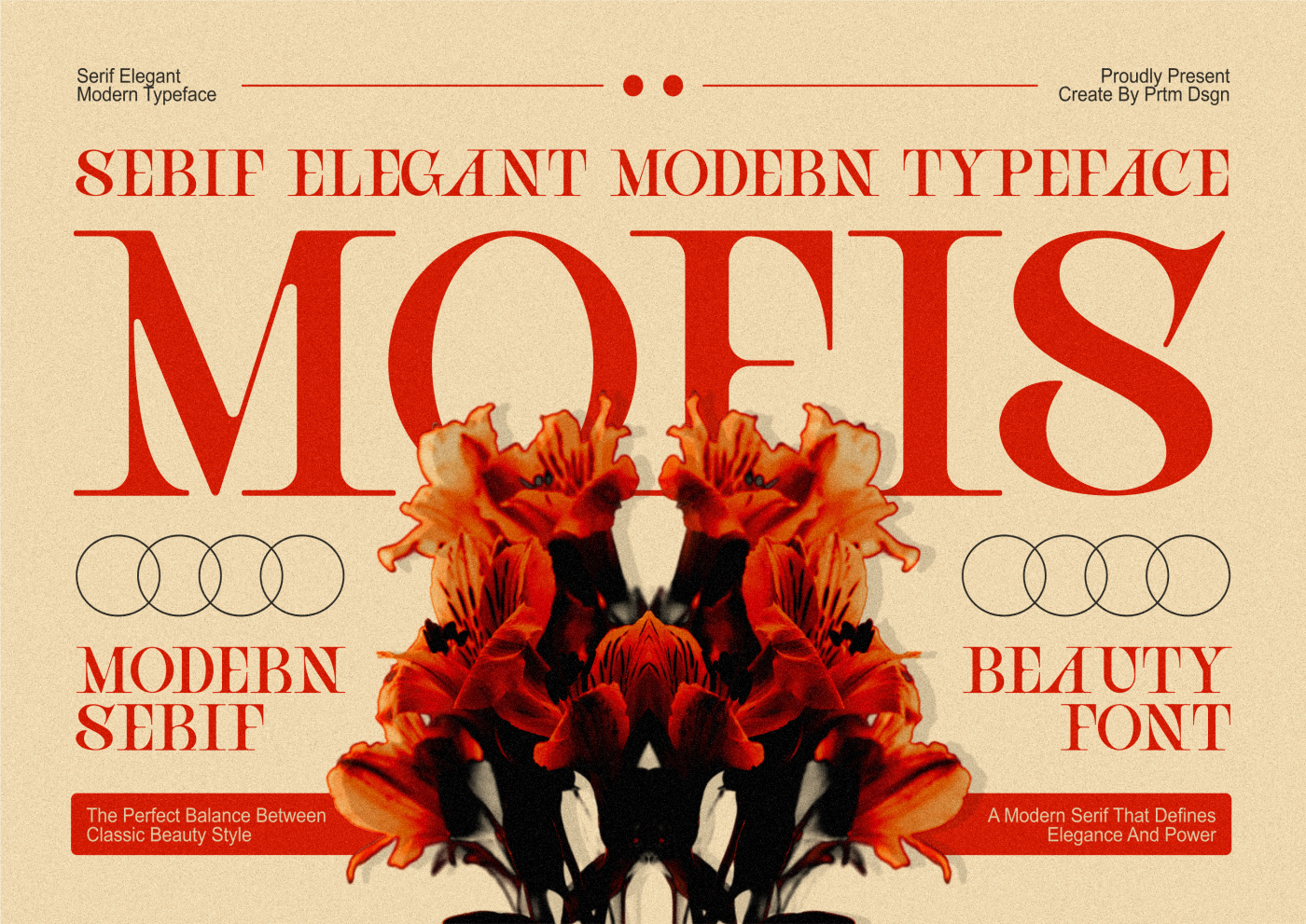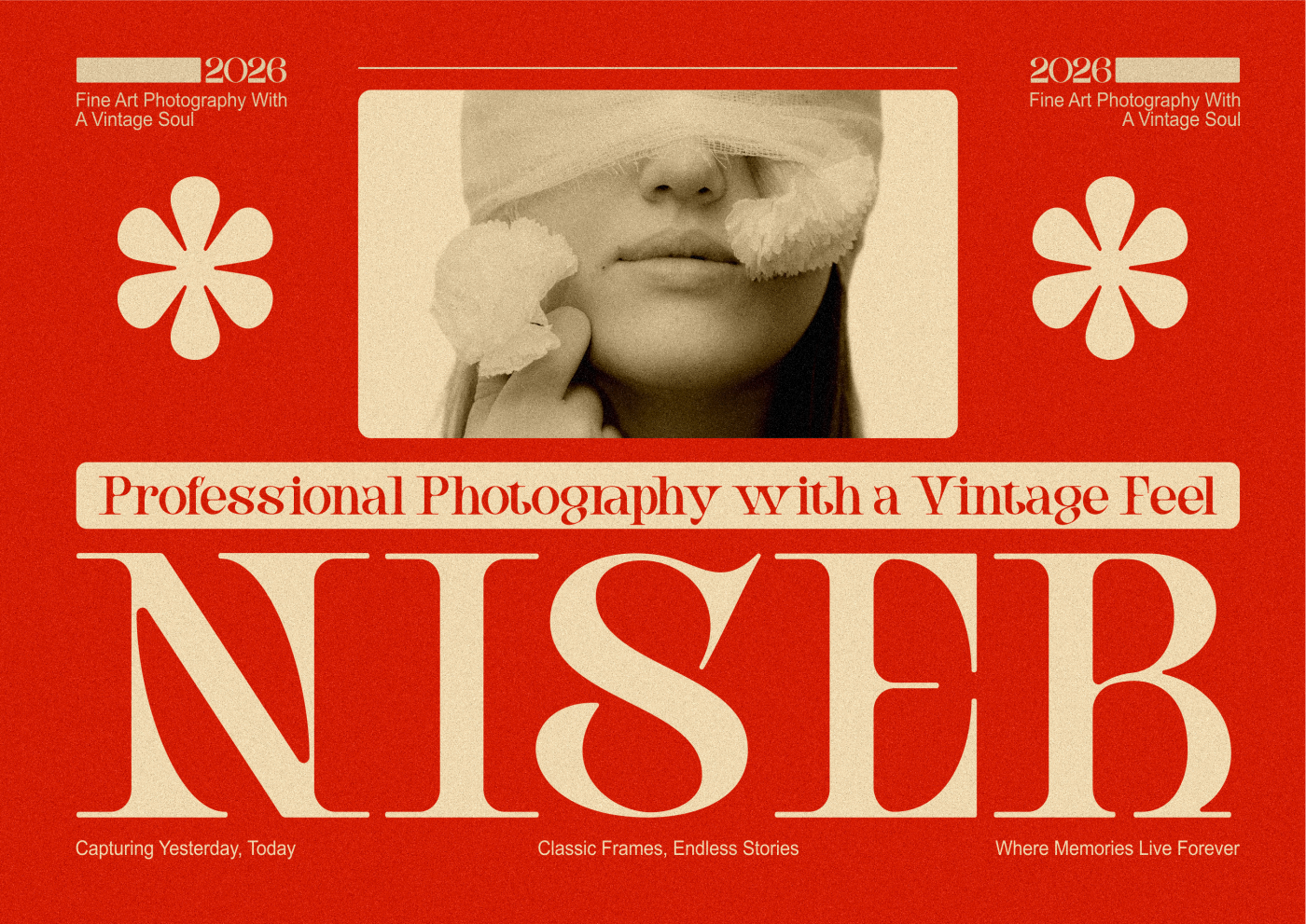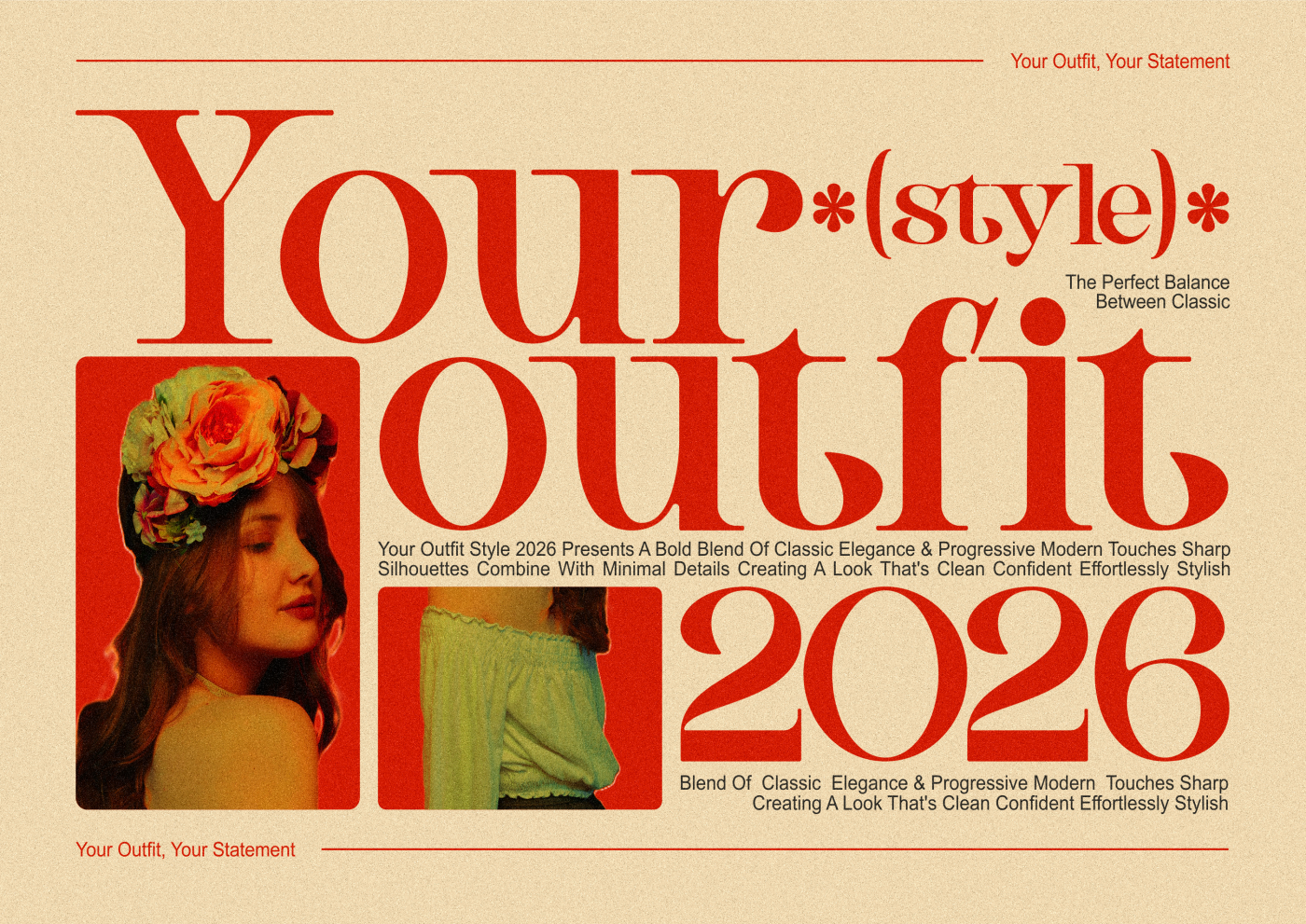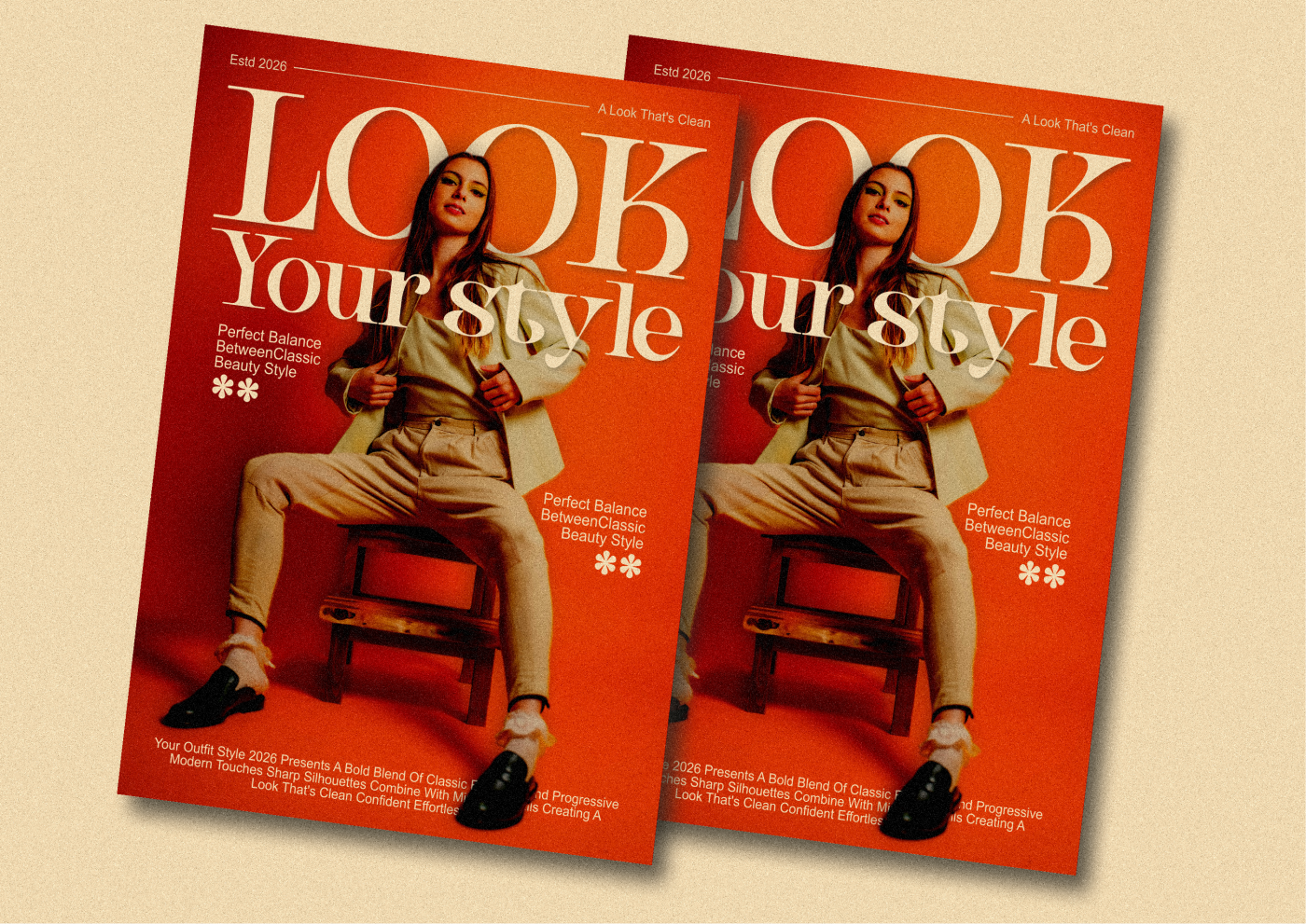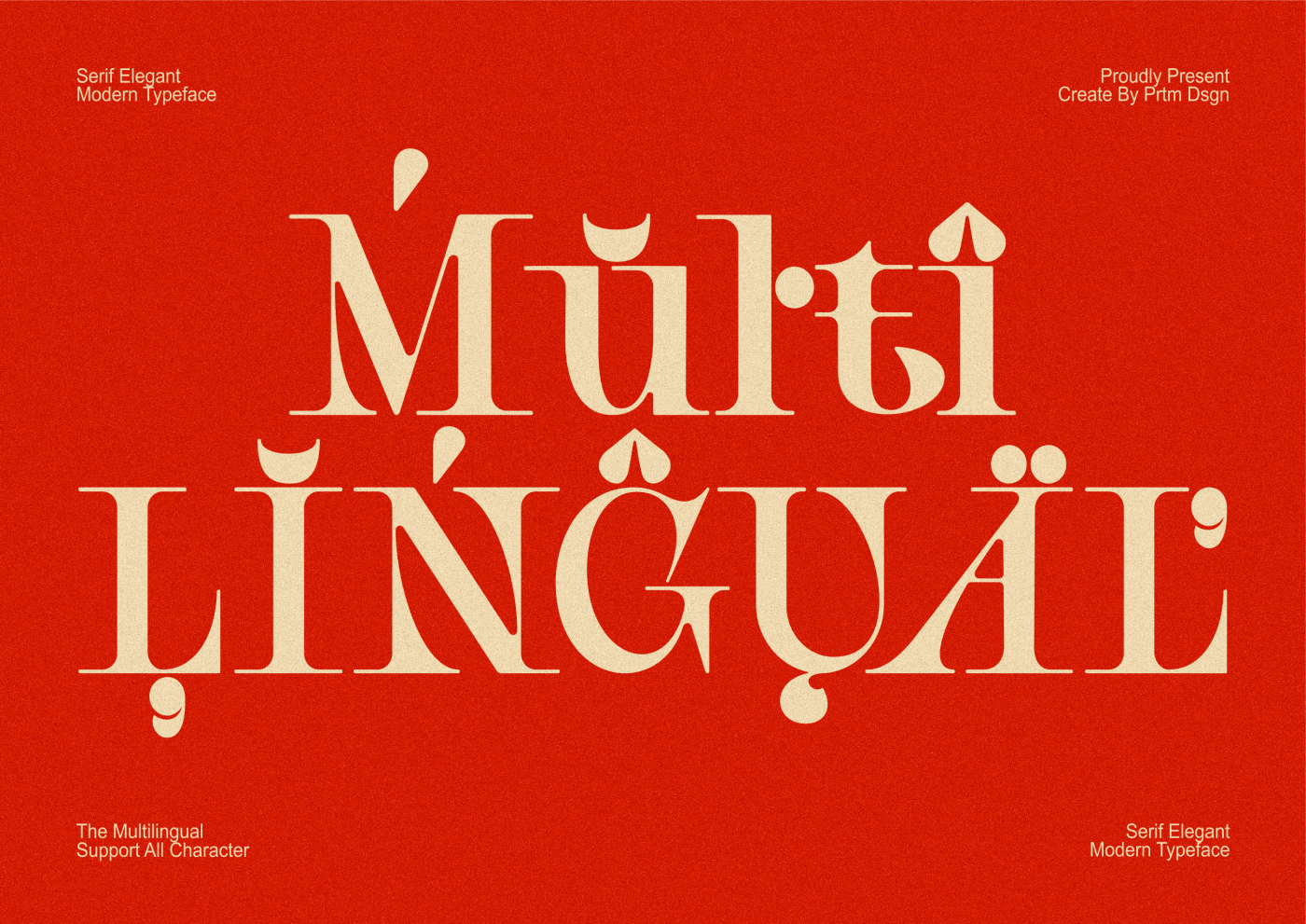
MOFIS is a modern serif typeface that blends classic beauty with a strong contemporary touch. Designed with a bold yet elegant character, this font strikes the perfect balance between subtlety and visual boldness.Each letter features a stylish shape with subtle contrasting strokes, creating a luxurious, feminine, and sophisticated feel. The sharp yet soft serif details make it ideal for designs that want a premium look without sacrificing a modern feel.Supporting uppercase, lowercase, and numeral letters, MOFIS delivers high expectations for a variety of design needs.